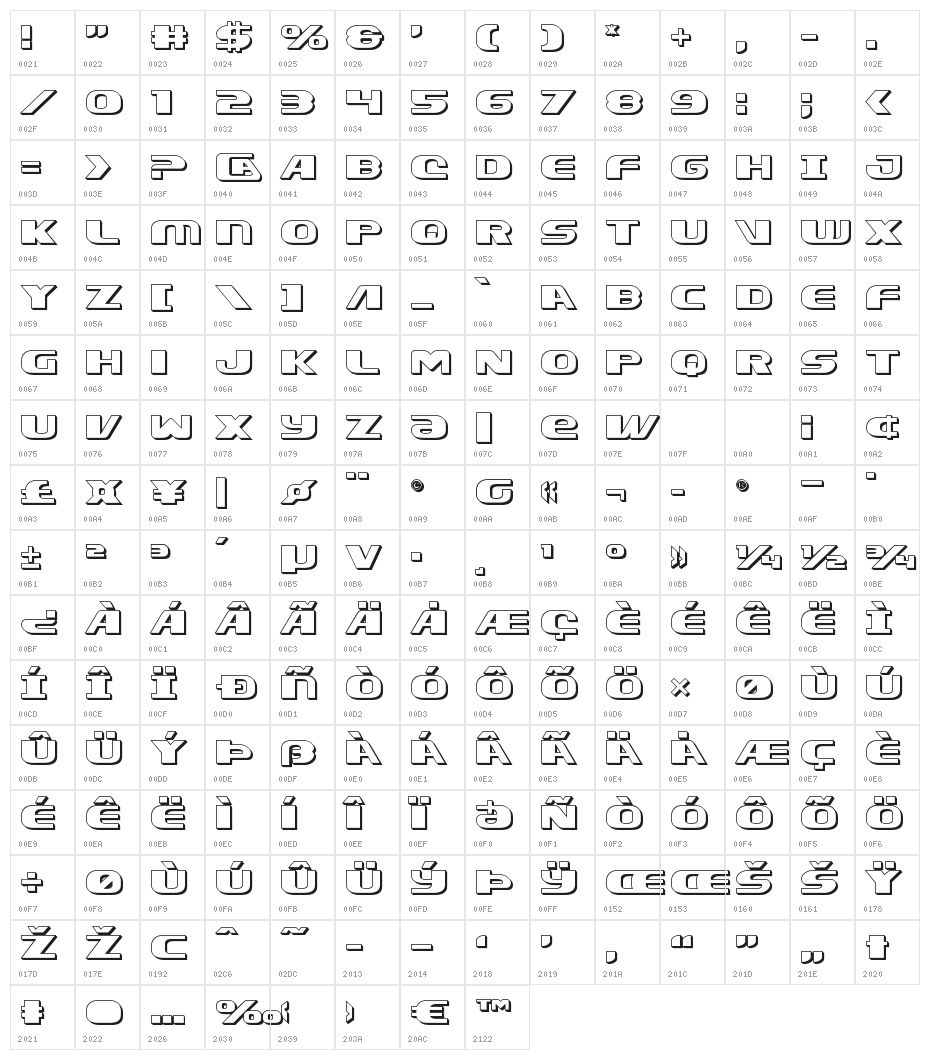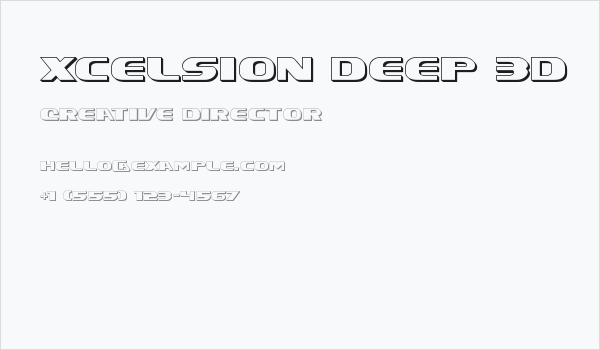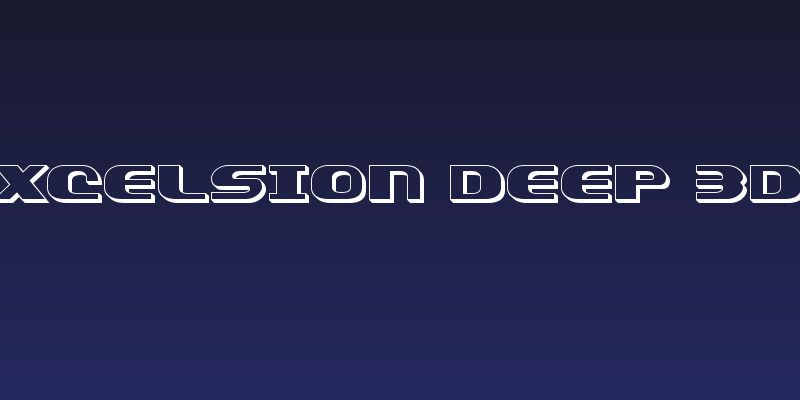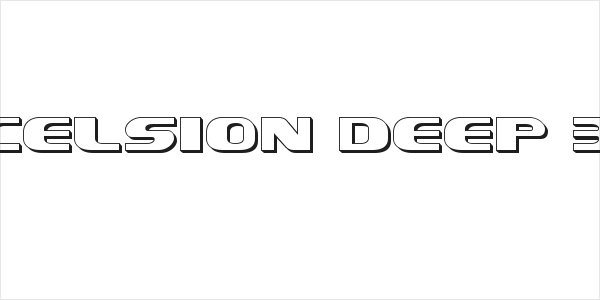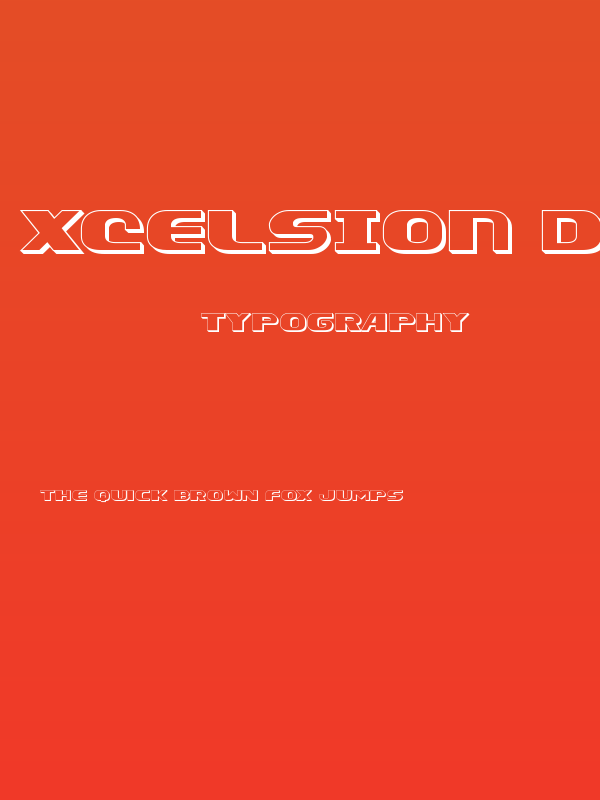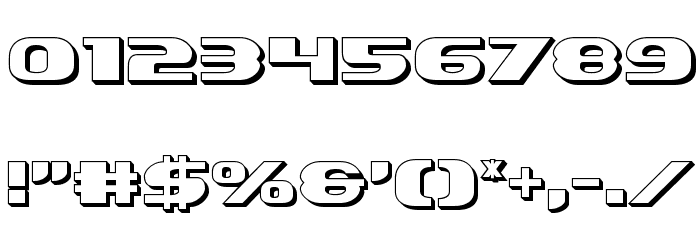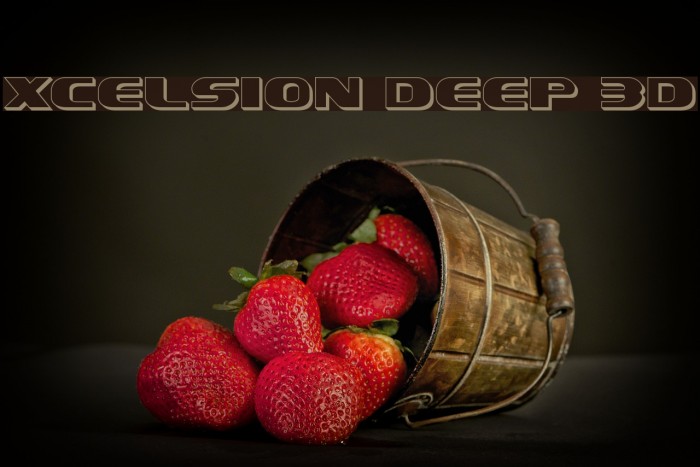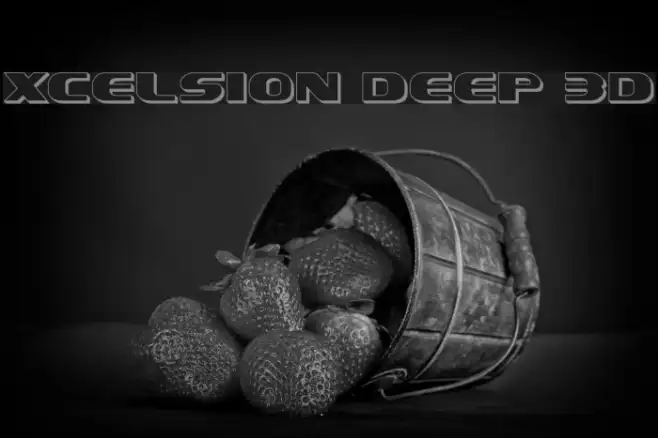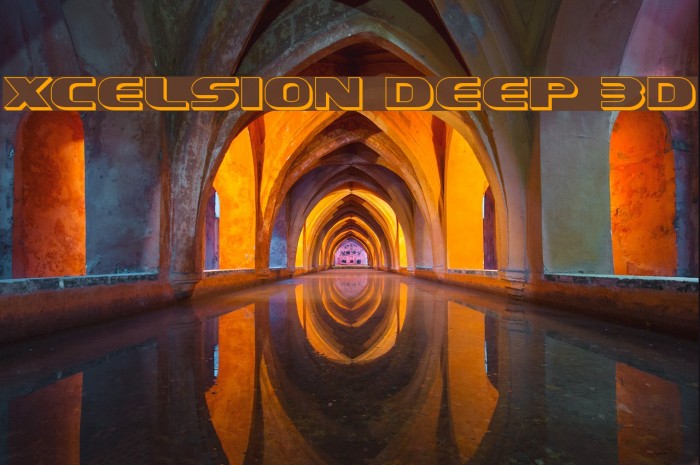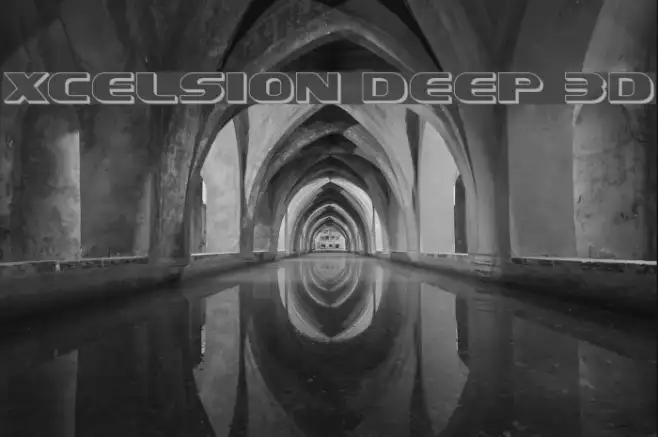
Xcelsion Deep 3D Font
Xcelsion Deep 3D Description
This font features a bold, three-dimensional style with a futuristic and geometric design. The characters are outlined with a thick border, creating a sense of depth and shadow. The uppercase letters are uniform in height, with a consistent width that gives a balanced appearance. The numerals and special characters follow the same design principles, ensuring cohesion across all glyphs. This font's unique style makes it stand out, ideal for projects that require a modern and eye-catching typeface.
| Proposed Projects | Ideal for sci-fi themed posters, video game titles, and technology branding. |